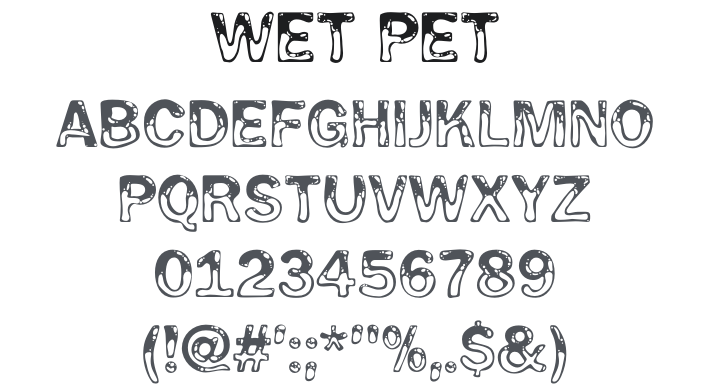
Wet Pet Font
About Wet Pet
Wet Pet is a bold, chunky outline display typeface where every letterform is filled with organic, dripping blob patterns — irregular splotchy shapes that pool and trickle inside each character like wet fur, ink blots, or damp spots on paper. The rounded, friendly letterforms contrast wonderfully with the unsettling interior texture. Perfect for Halloween designs, horror-comedy branding, novelty packaging, pet-themed projects, and any headline needing a gloriously weird, moist personality.